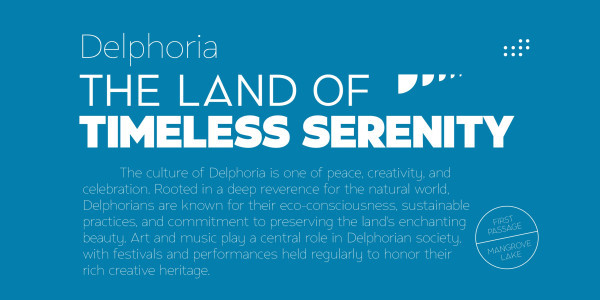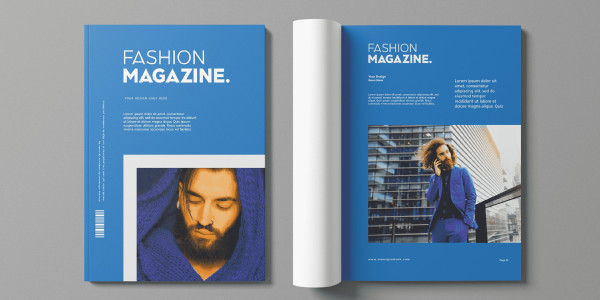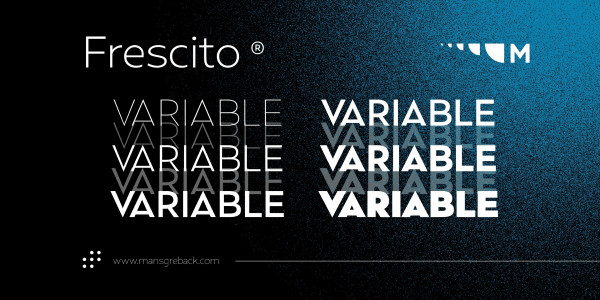
Frescito Variable Font is a modern sans-serif typeface that embodies a fresh, cool, and street-smart aesthetic. Designed to be both balanced and versatile, Frescito Variable Font is a font that combines the best of both worlds: an air of freshness and modernity with an unpretentious, timeless and classy appeal.
This is a Variable Font!
Only one font file, but the file contains multiple styles.
This gives you not only the predefined styles, but instead more than a thousand ways to customize the type to the exact look your project requires.